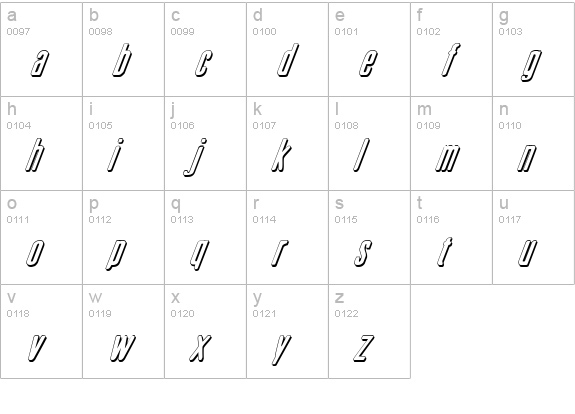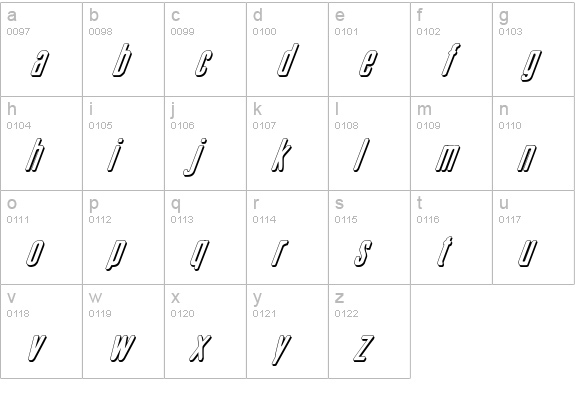
Sister Europe Shadow Italic is a distinctive, italic variant in the Sister typeface family \xE2\x80\x94 well suited to design and typography projects.
Sister Europe Shadow Italic font is a unique and stylish typeface that exudes elegance and sophistication. With its dramatic slanted design and intricate shadow detailing, this font is perfect for adding a touch of flair to your projects. Whether you're working on invitations, branding, or editorial designs, Sister Europe Shadow Italic font will surely make a statement. Best of all, Sister Europe Shadow Italic font is available for free download at FontsMarket.com. Don't miss out on the opportunity to enhance your designs with this stunning and versatile typeface. Download it today and let your creativity shine!